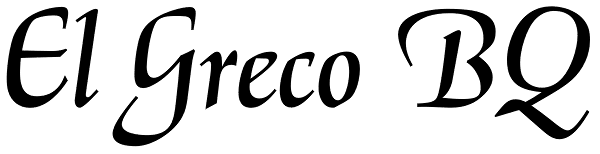
El Greco BQ
El Greco was designed by Günter Gerhard Lange in 1964. El Greco is paired with Arkona, designed in 1935 by Karl Klauss. These scripts dress up informal documents and add lightness to formal documents.